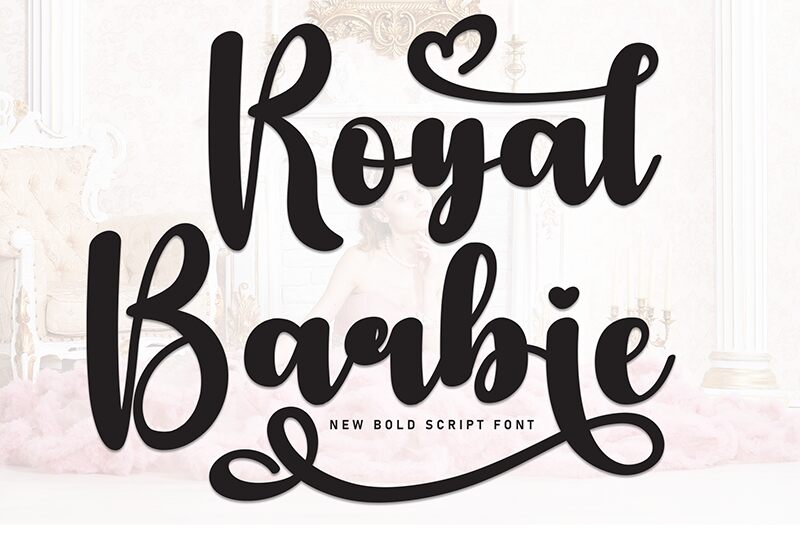
Royal Barbie
Royal Barbie font, an elegant handwritten design by Andi Moz, is a beautiful free script for users to enjoy. With its flowing letters and modern aesthetic, it brings out sophistication and the necessary expressive touch. The font is stylish yet unique in its look which adds value to your end projects.
Using Royal Barbie for headers and newspapers is one idea. The versatile file can also be used on personal business cards, signatures, posters for movie titles and others. Use this beauty on invitation cards such as weddings or use it in branding campaigns effortlessly whether it’s online or offline.